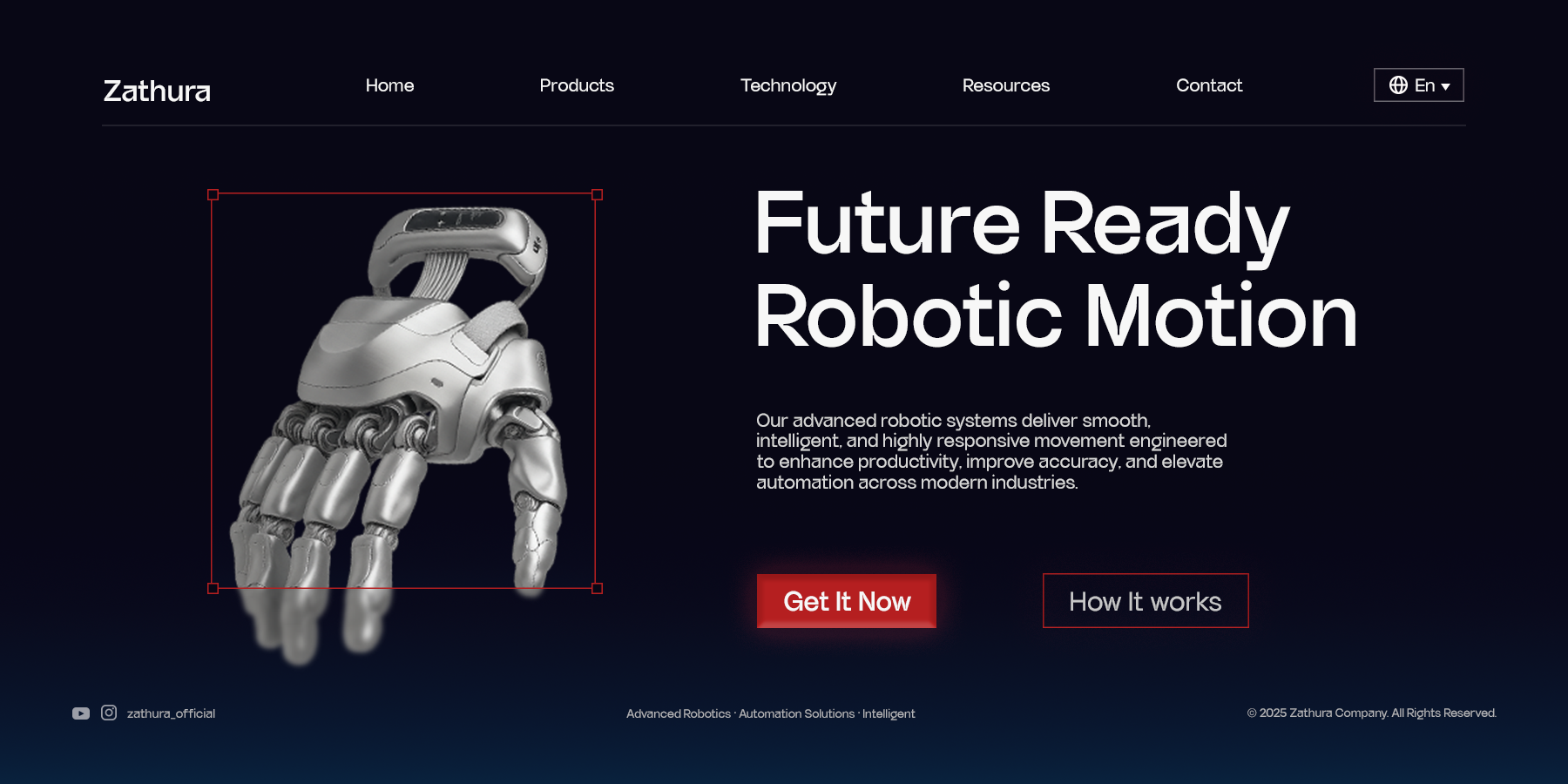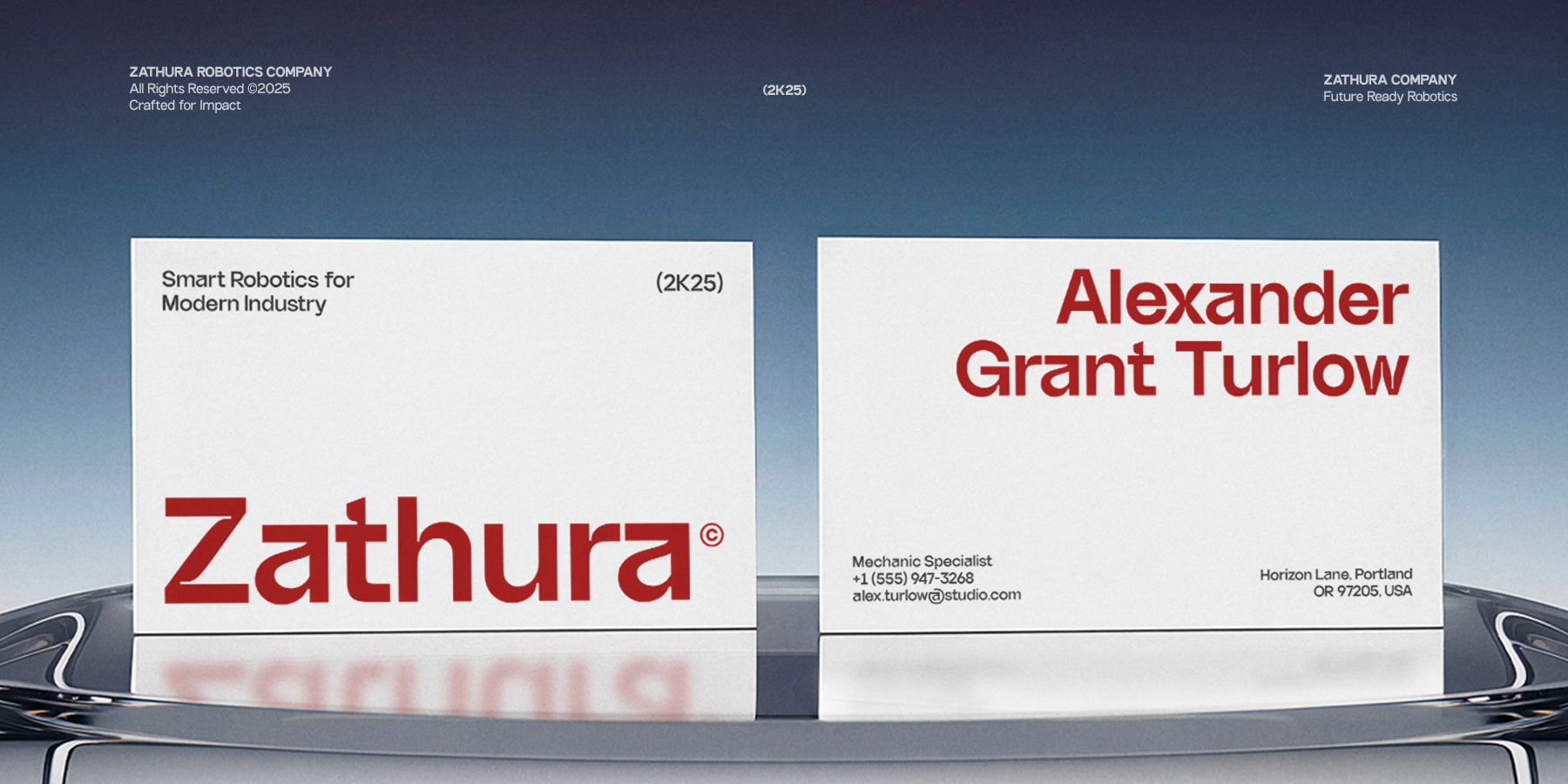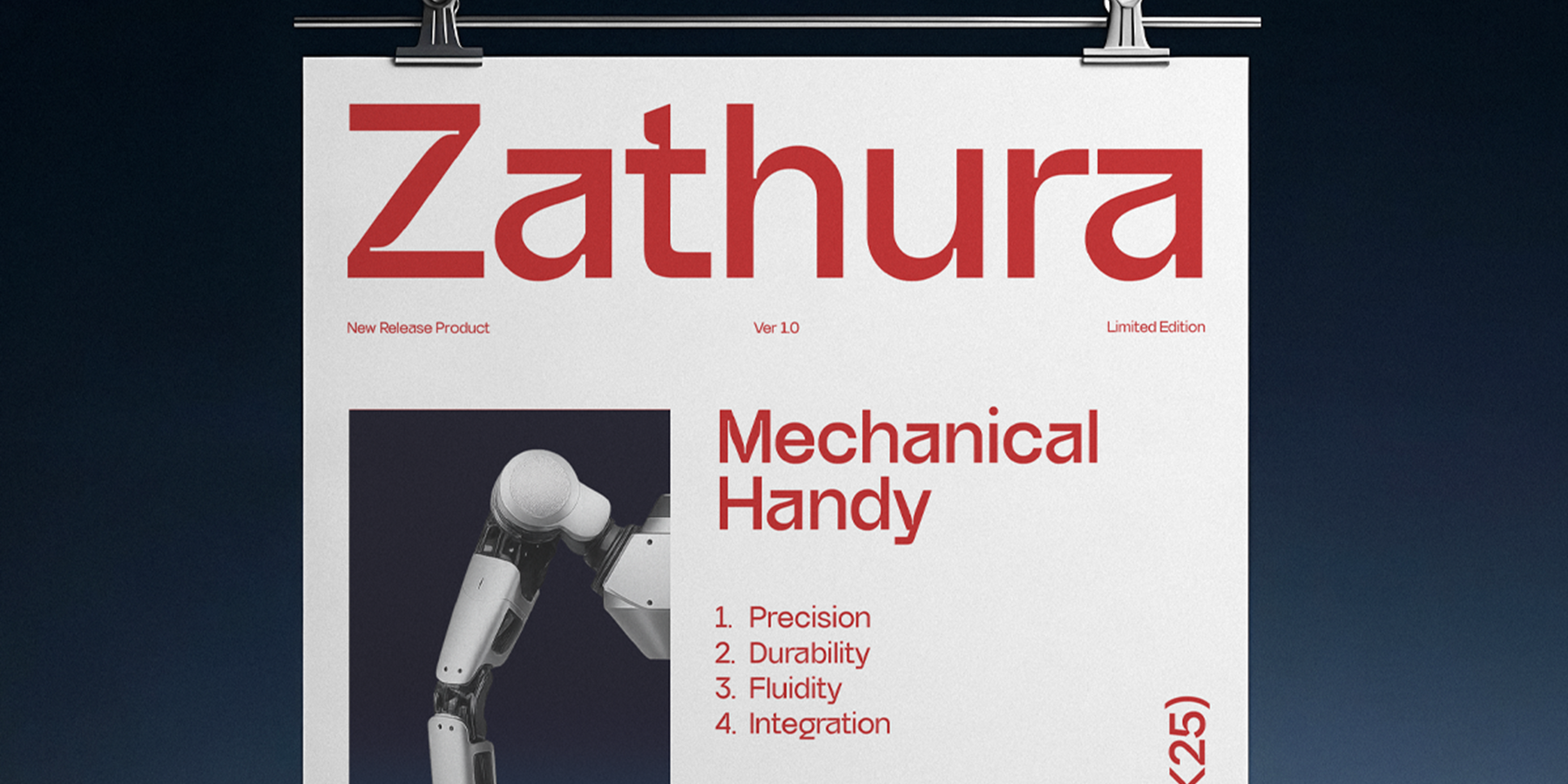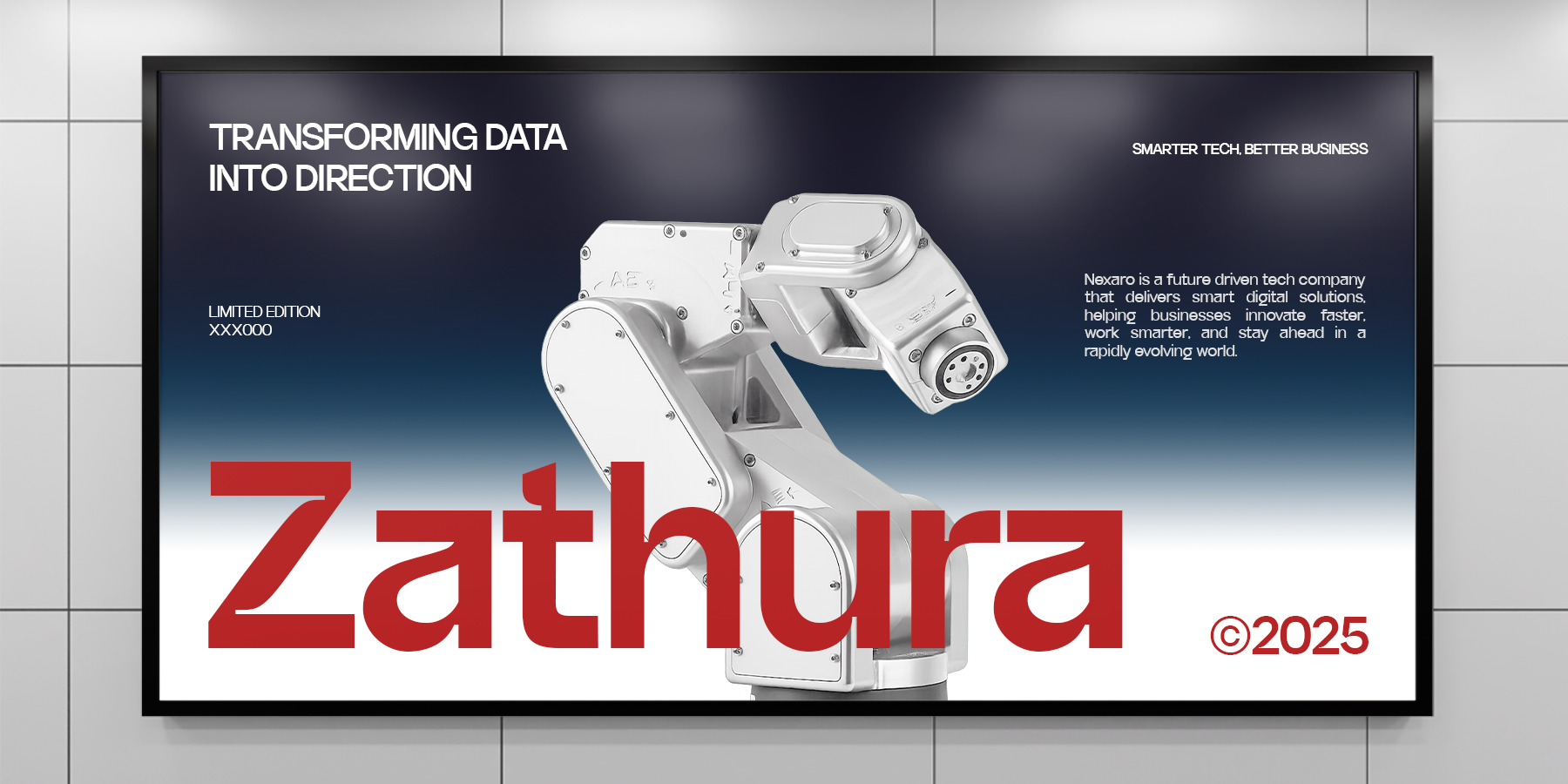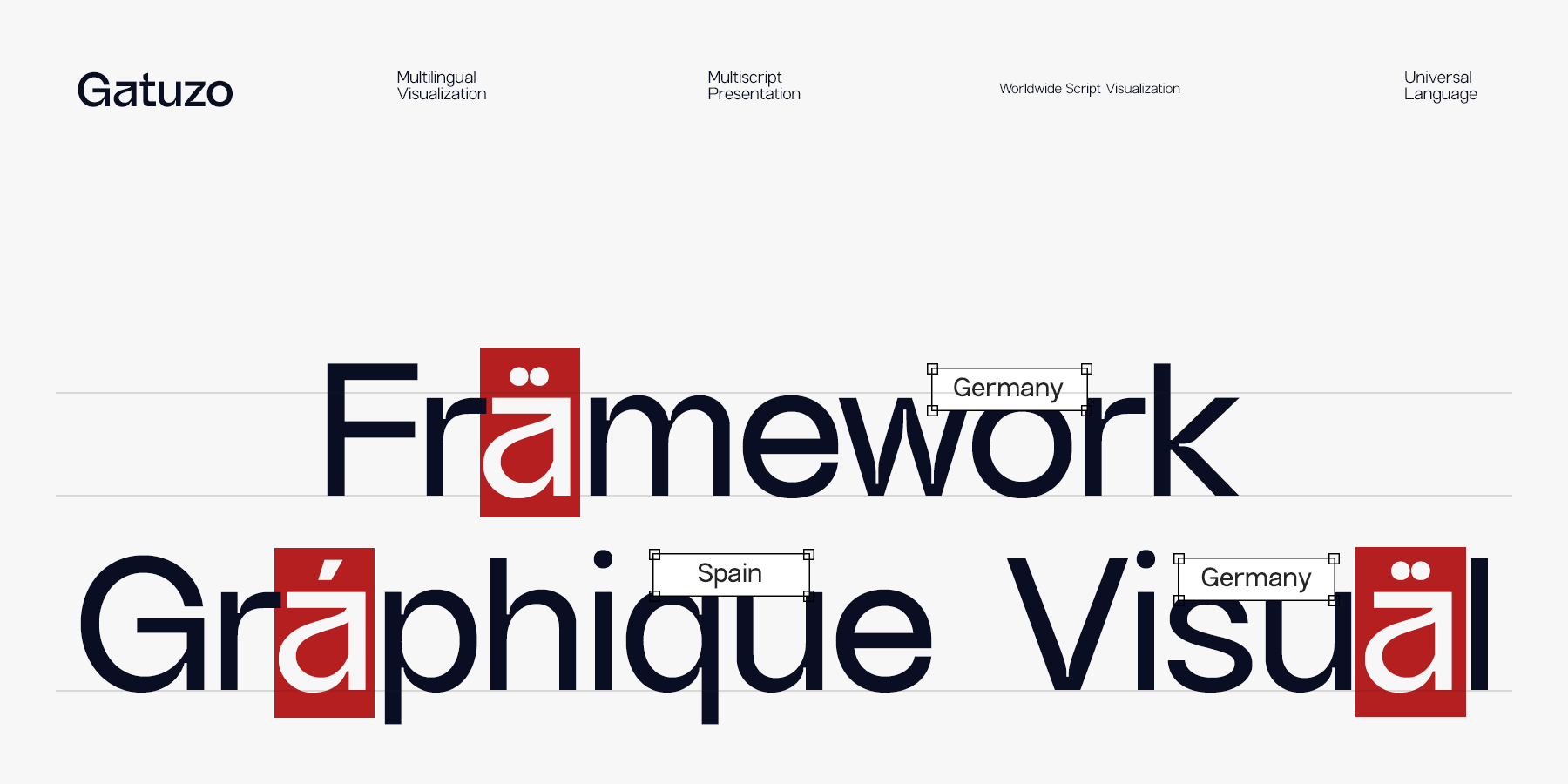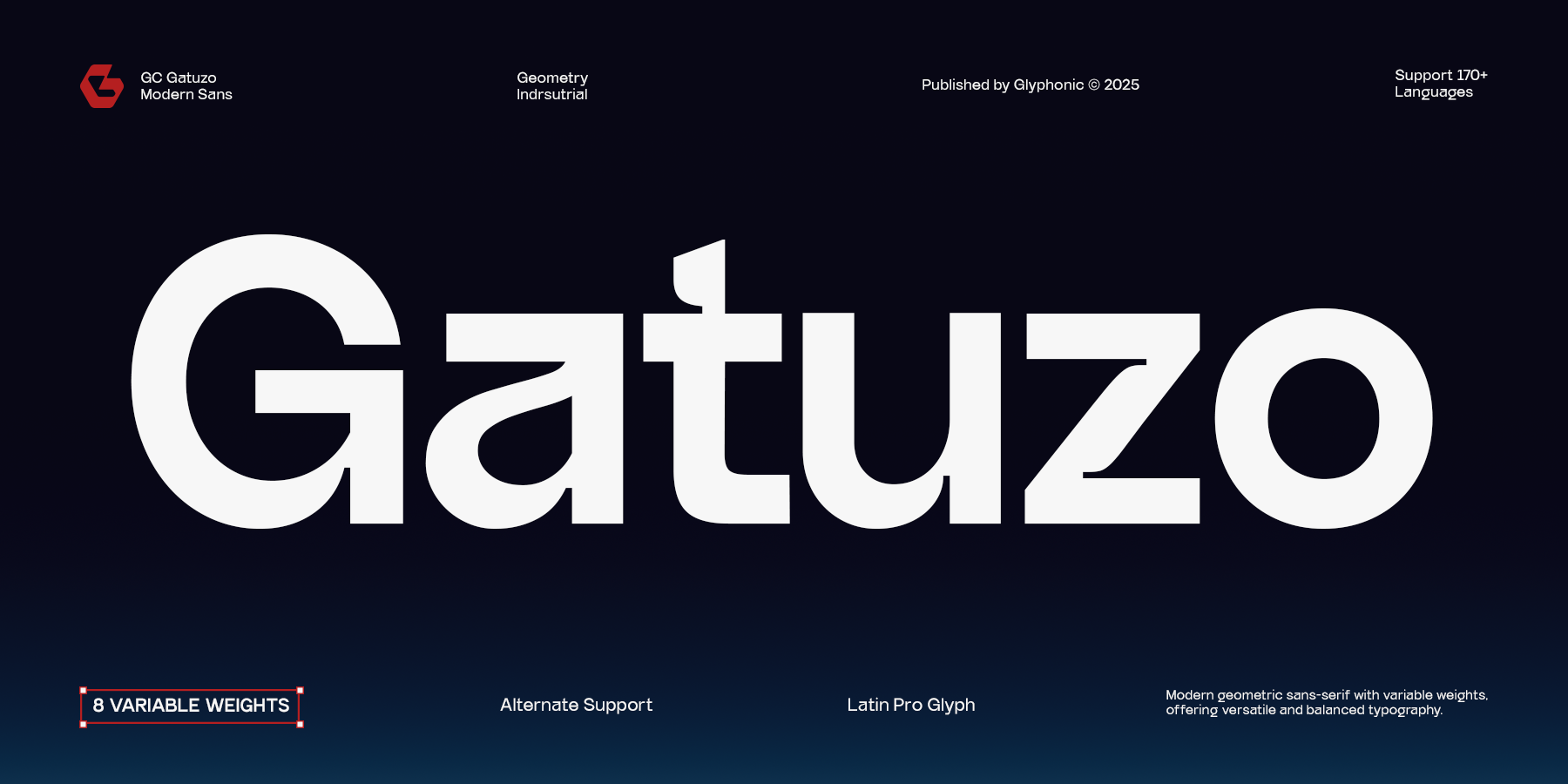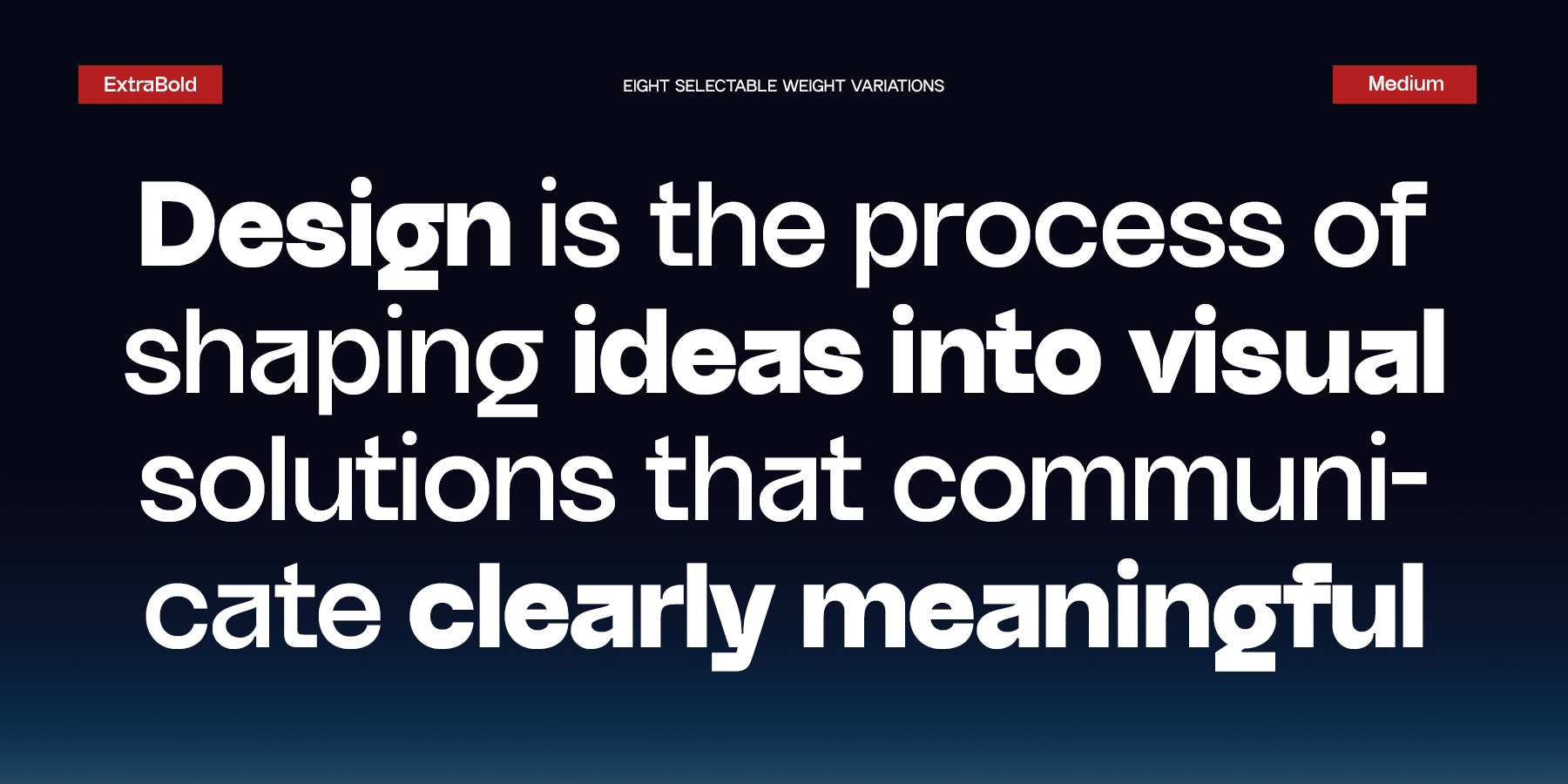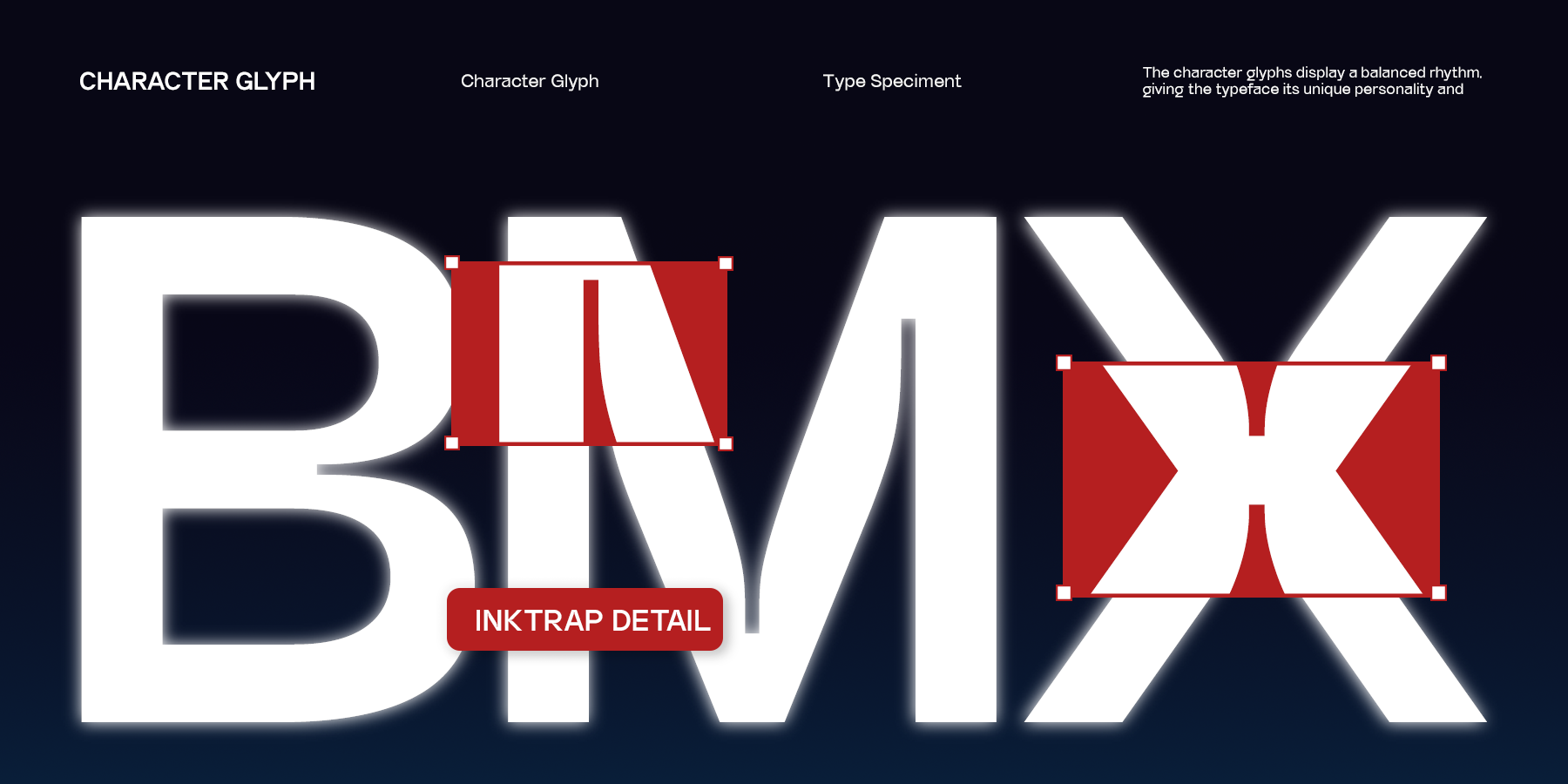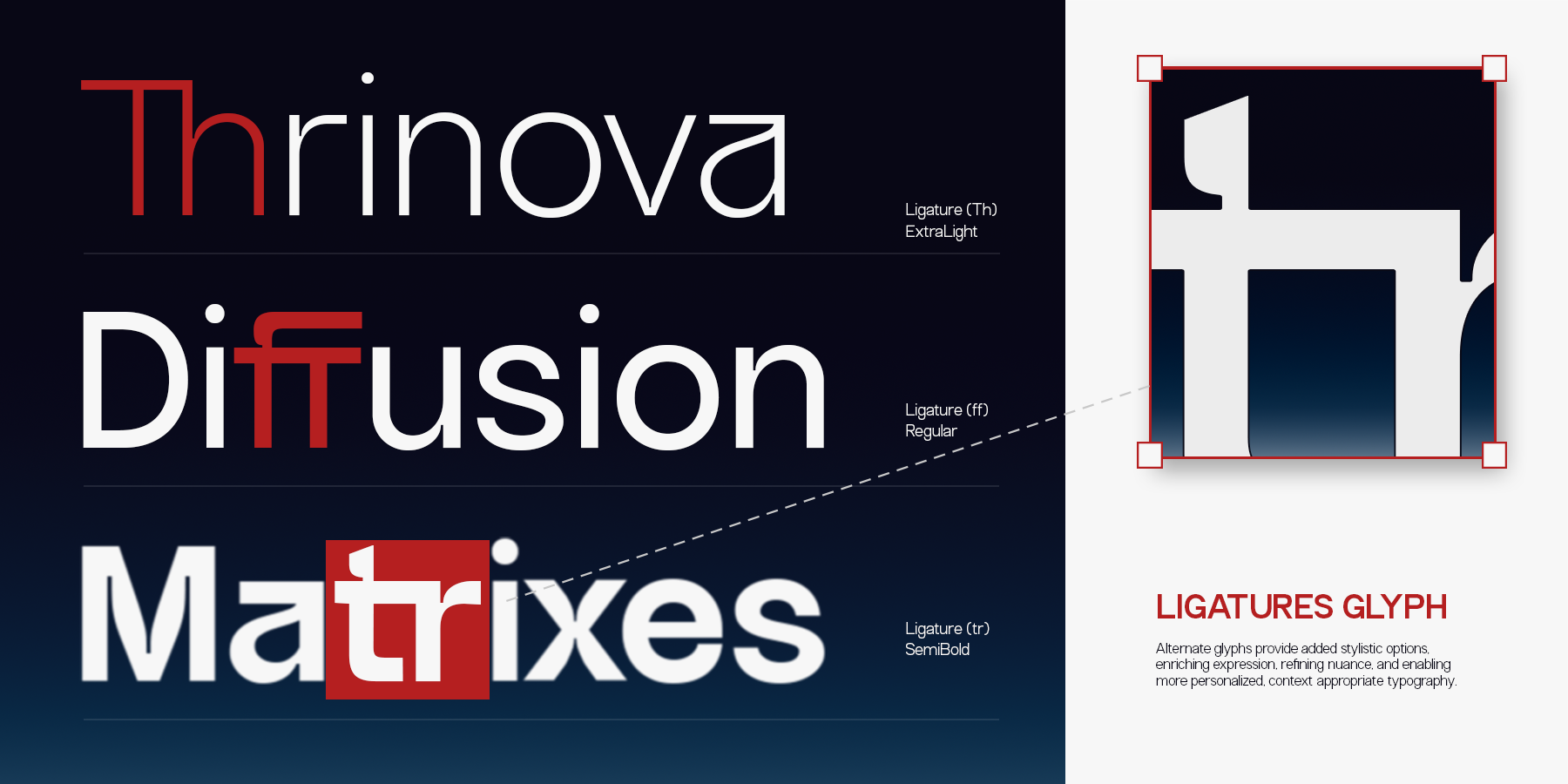
GC Gatuzo by Glyphonic – Geometric Sans is a contemporary sans serif typeface built on strong geometric foundations, designed to deliver clarity, balance, and modern versatility. With clean shapes and confident strokes, it offers a bold yet refined voice that performs seamlessly across both digital and print applications.
Crafted to embrace simplicity while maintaining a distinctive character, GC Gatuzo is ideal for branding, editorial layouts, tech-inspired projects, and impactful visual identities. Its well-balanced proportions and precise detailing make the typeface highly adaptable without losing its unique geometric appeal.
Whether you’re designing sleek user interfaces, bold headlines, or minimalistic posters, GC Gatuzo brings strength, modernity, and visual clarity to your typography.
Bring clarity, structure, and modern geometric elegance to your designs with GC Gatuzo – Geometric Sans.